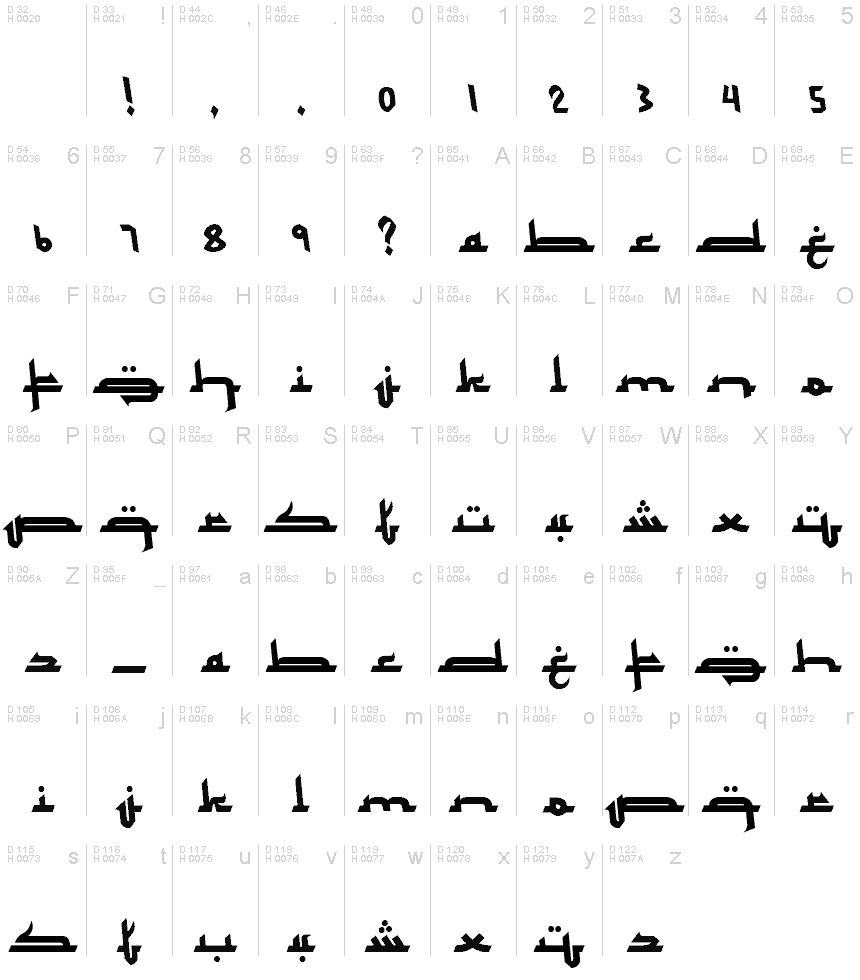
Mukadimah
Mukadimah is a captivating Arabic font designed by Adien Gunarta. This expanded, foreign-style typeface exudes a harmonious blend of tradition and modernity.
The striking calligraphic strokes and graceful curves convey a sense of elegance and sophistication, making Mukadimah an excellent choice for a wide range of applications, from editorial design to branding and packaging. Its distinct visual identity lends itself particularly well to projects that seek to evoke a strong cultural or heritage-inspired aesthetic.
Mukadimah's versatility extends across various mediums, seamlessly integrating into digital and print environments alike.